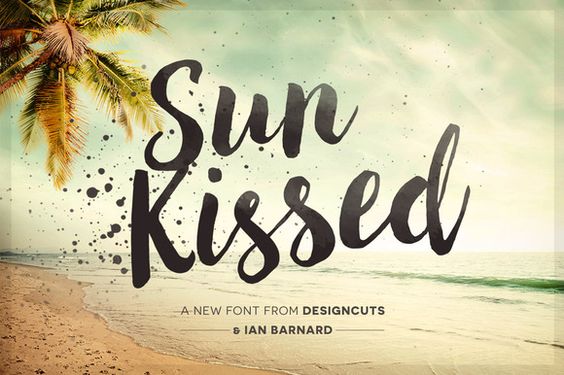
Sun Kissed Brush Font
Sun Kissed has taken months of hard work to research, refine and test. It has the artistic flair that our community love, as well as the pixel perfect precision that you’d expect from a world class font. Sun Kissed is a handwritten font. Ideal for logos, handwritten quotes, product packaging, header, poster, merchandise, social media and greeting cards.